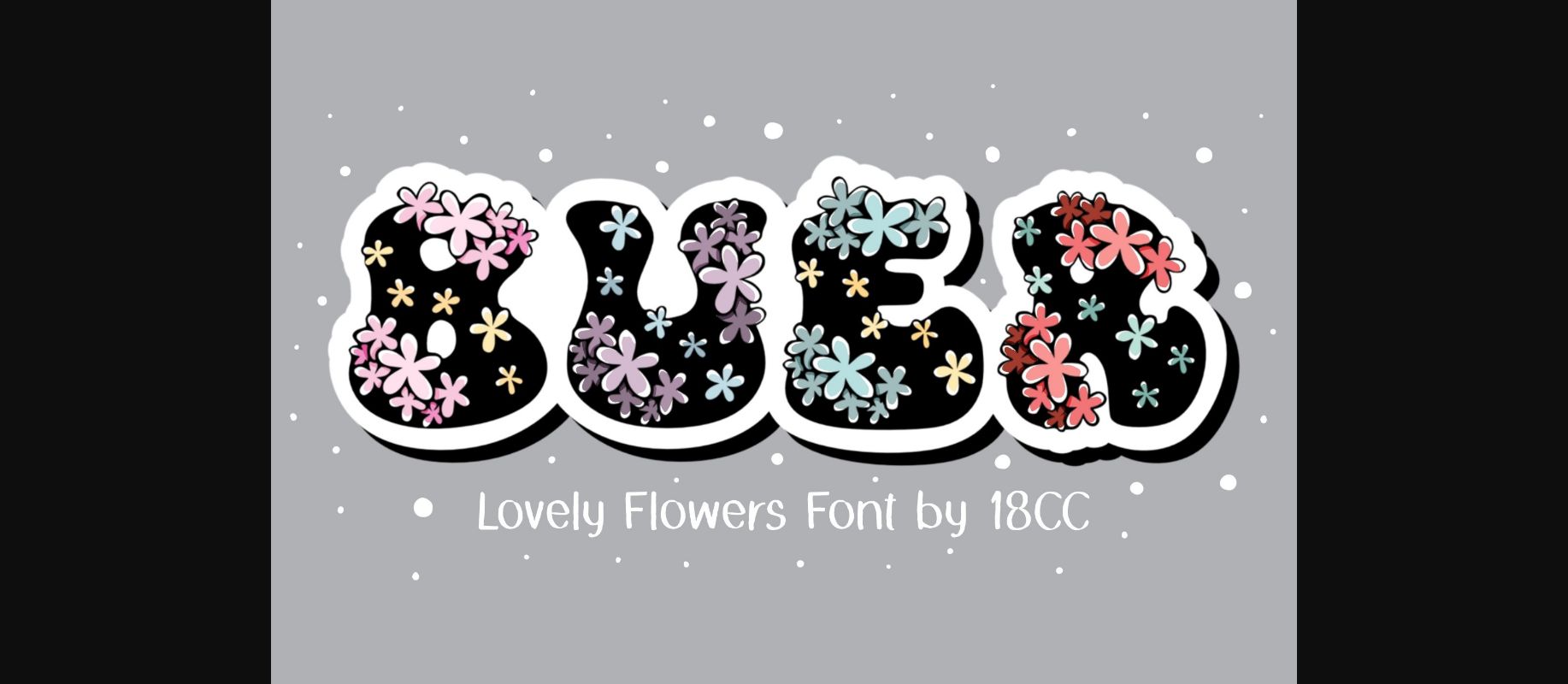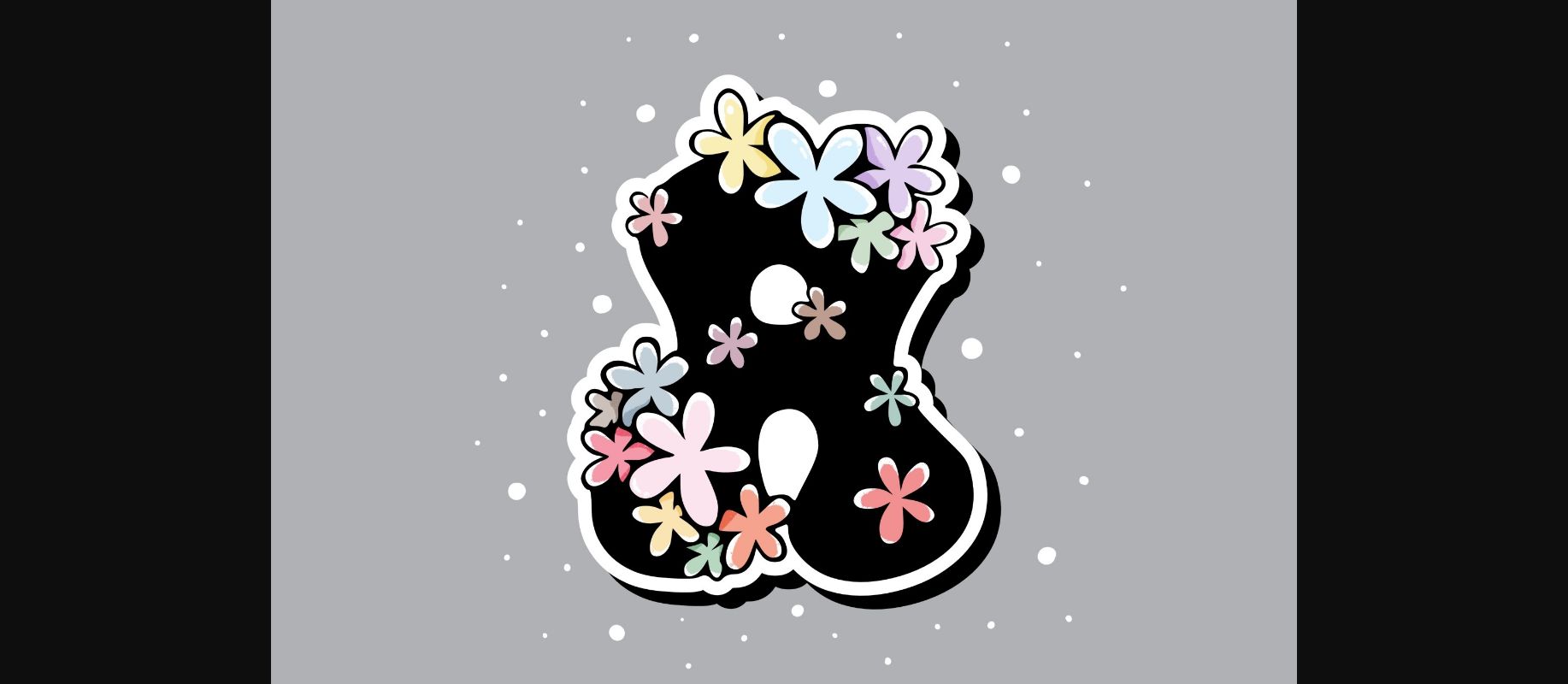
About Buer Font
Buer is a lovely flowers theme font. This font is the perfect fit for all of your logos, branding, social media, crafty DIY projects, and much more!